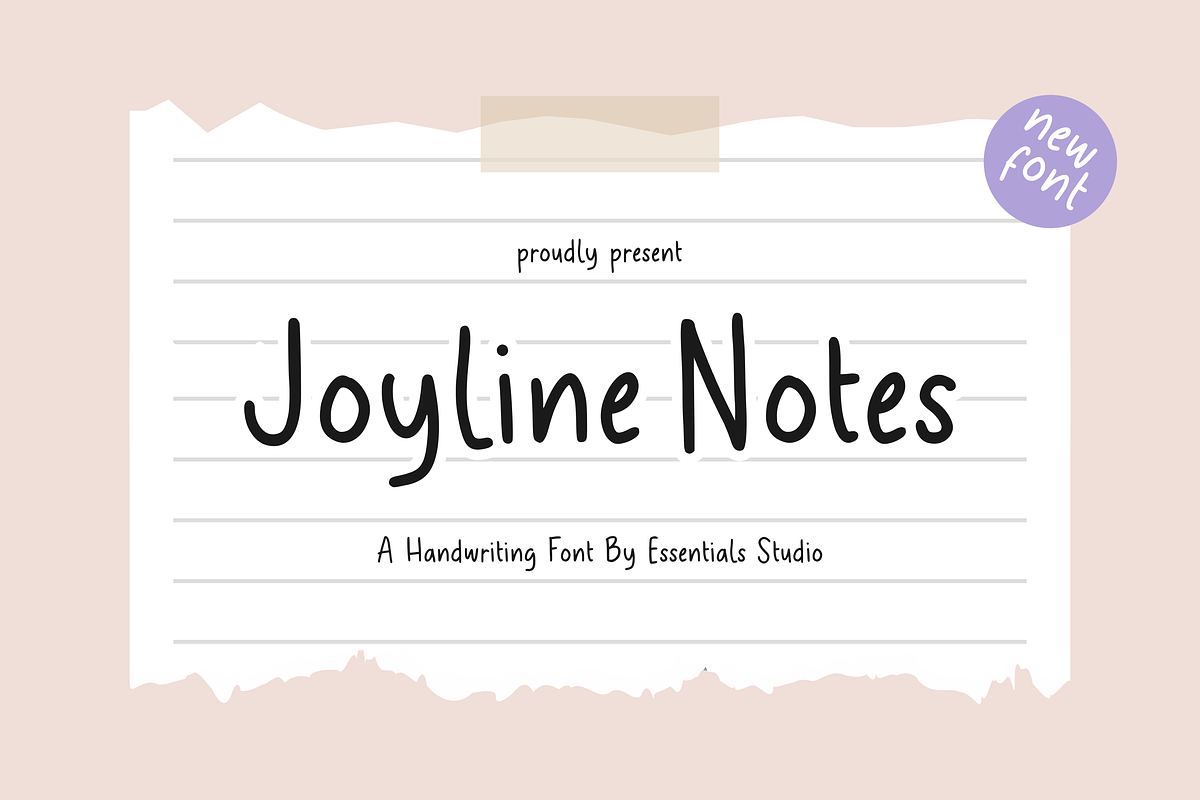
Joyline Notes Font Free Download is a delightful handwritten script typeface that brings a personal and charming touch to your designs. With its smooth curves, flowing strokes, and organic feel, this font is perfect for creating casual, creative branding, greeting cards, invitations, social media graphics, and more.
Its friendly, approachable design makes it ideal for projects that require a warm and heartfelt touch, while maintaining a modern, readable style. Whether you're working on a playful logo, a personal invitation, or creative content for social media, Joyline Notes Font Free Download adds an authentic handwritten quality to your typography.